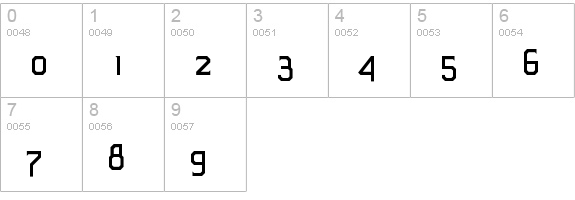
TeknoICG Font Details
TeknoICG font is a captivating and modern typeface that effortlessly combines sleekness and sophistication. Its unique design features clean lines and sharp edges, creating a futuristic aesthetic that is perfect for contemporary designs. With its bold and assertive appearance, this font is sure to make a bold statement in any project. Not only does TeknoICG font offer a visually stunning design, but it also provides versatility and functionality. It is highly legible, making it suitable for a wide range of applications, including headlines, logos, posters, and branding materials. Its versatility extends to both digital and print mediums, ensuring that your message will be effectively communicated across various platforms. One of the most remarkable aspects of TeknoICG font is that it is freely available to download at FontsMarket.com. This means that you can easily access and use this exceptional font without any cost or restrictions. Whether you are a professional designer or a hobbyist, the availability of TeknoICG font for free allows you to enhance your creations without breaking the bank. Downloading TeknoICG font from FontsMarket.com is a simple and straightforward process. With just a few clicks, you can have this remarkable font at your fingertips, ready to elevate your design projects to new heights. The ease of access to this font ensures that you can seamlessly integrate it into your workflow, saving you valuable time and effort. In conclusion, TeknoICG font is a visually striking and versatile typeface that is freely available to download at FontsMarket.com. Its futuristic design, legibility, and cost-free accessibility make it an exceptional choice for any designer or creative individual. Embrace the modernity and sophistication of TeknoICG font, and watch your designs come to life with style and impact.